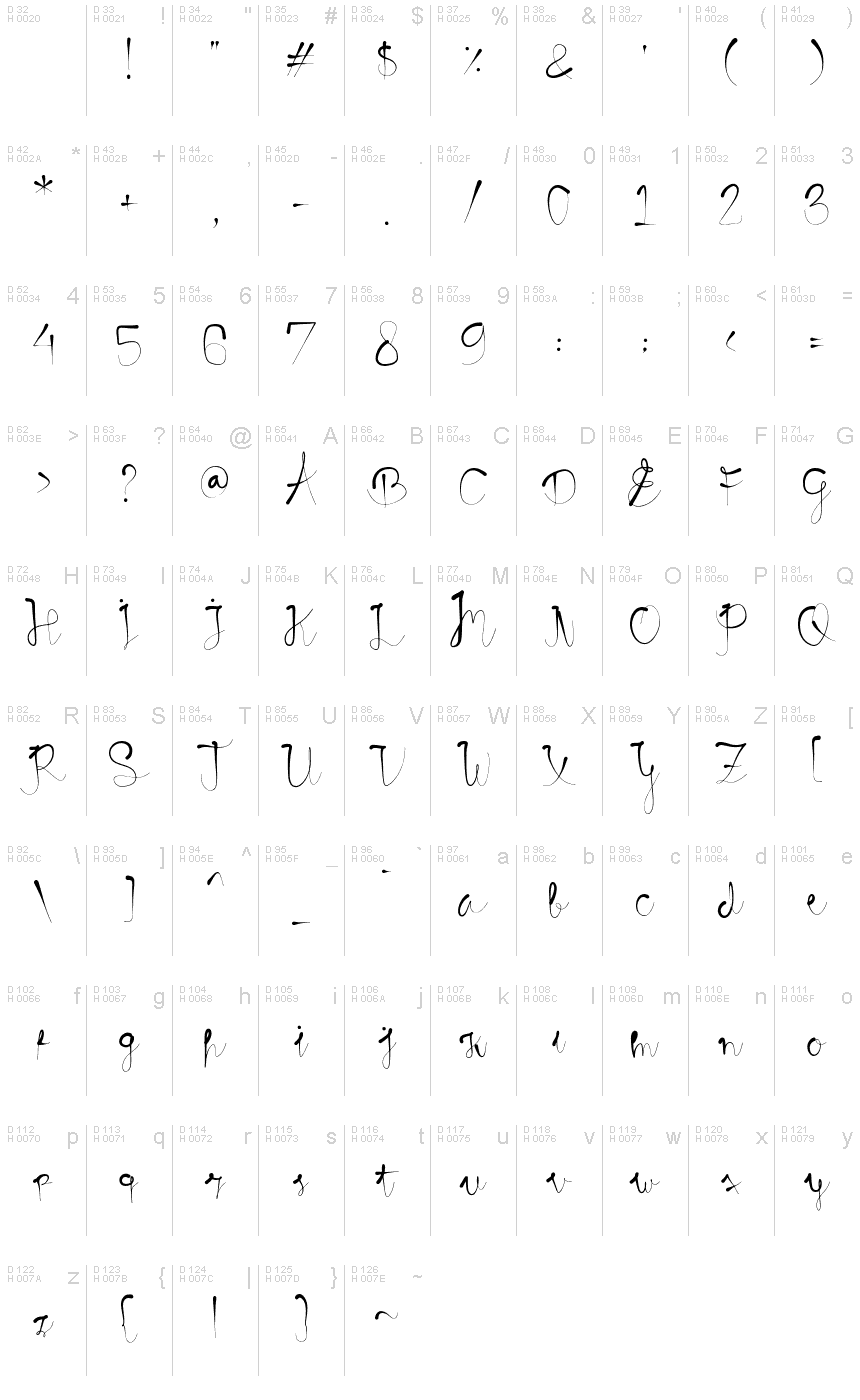
Etthiopian
ETTHIOPIAN is a very elegant calligraphy font. where you can use this font for various functions such as product logos, writing on your products, business cards, decorations in clothes, etc.
I made it so detailed that it became a distinctive feature compared to other similar fonts. I hope it lives up to your expectations so that those of you who use this font are very satisfied